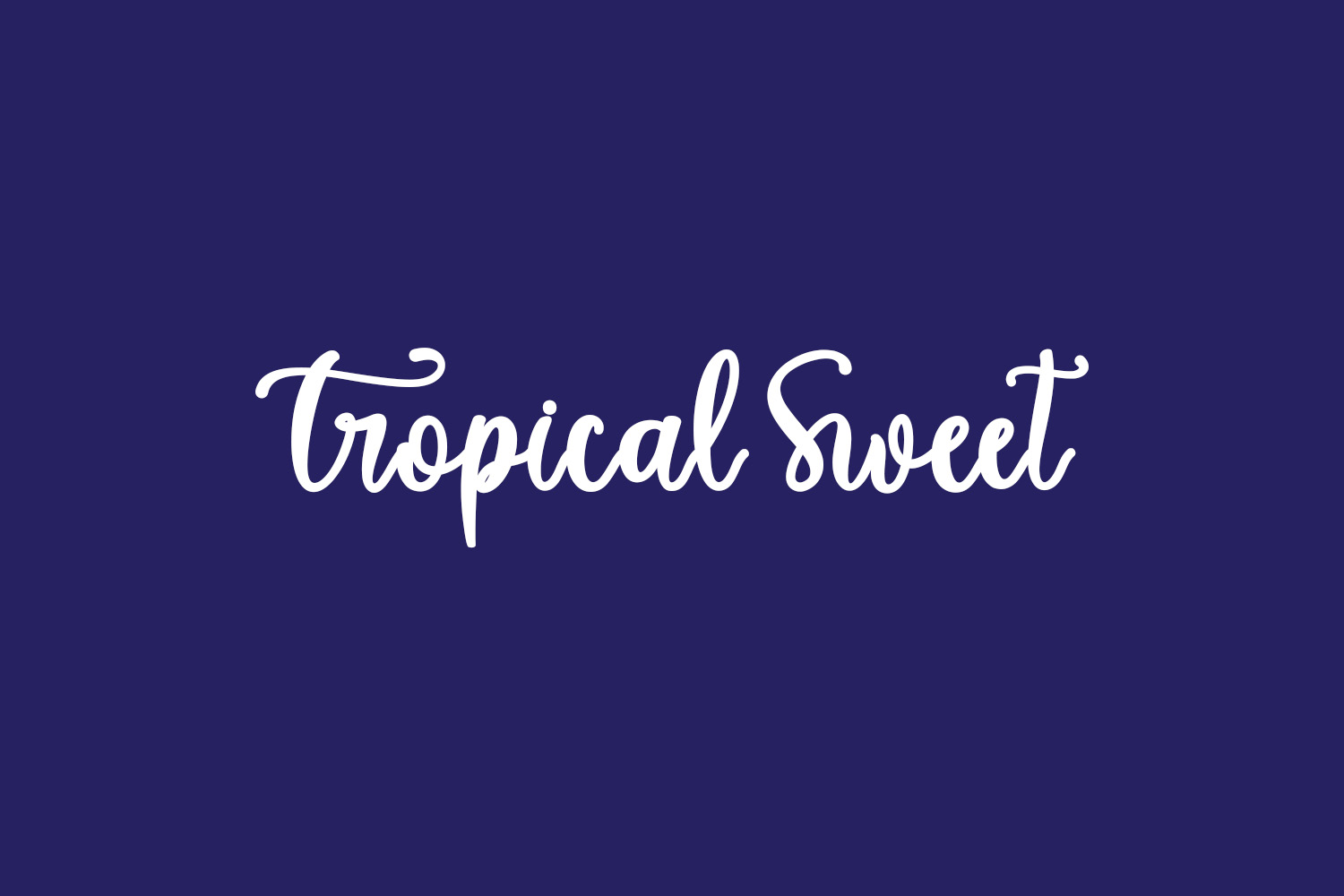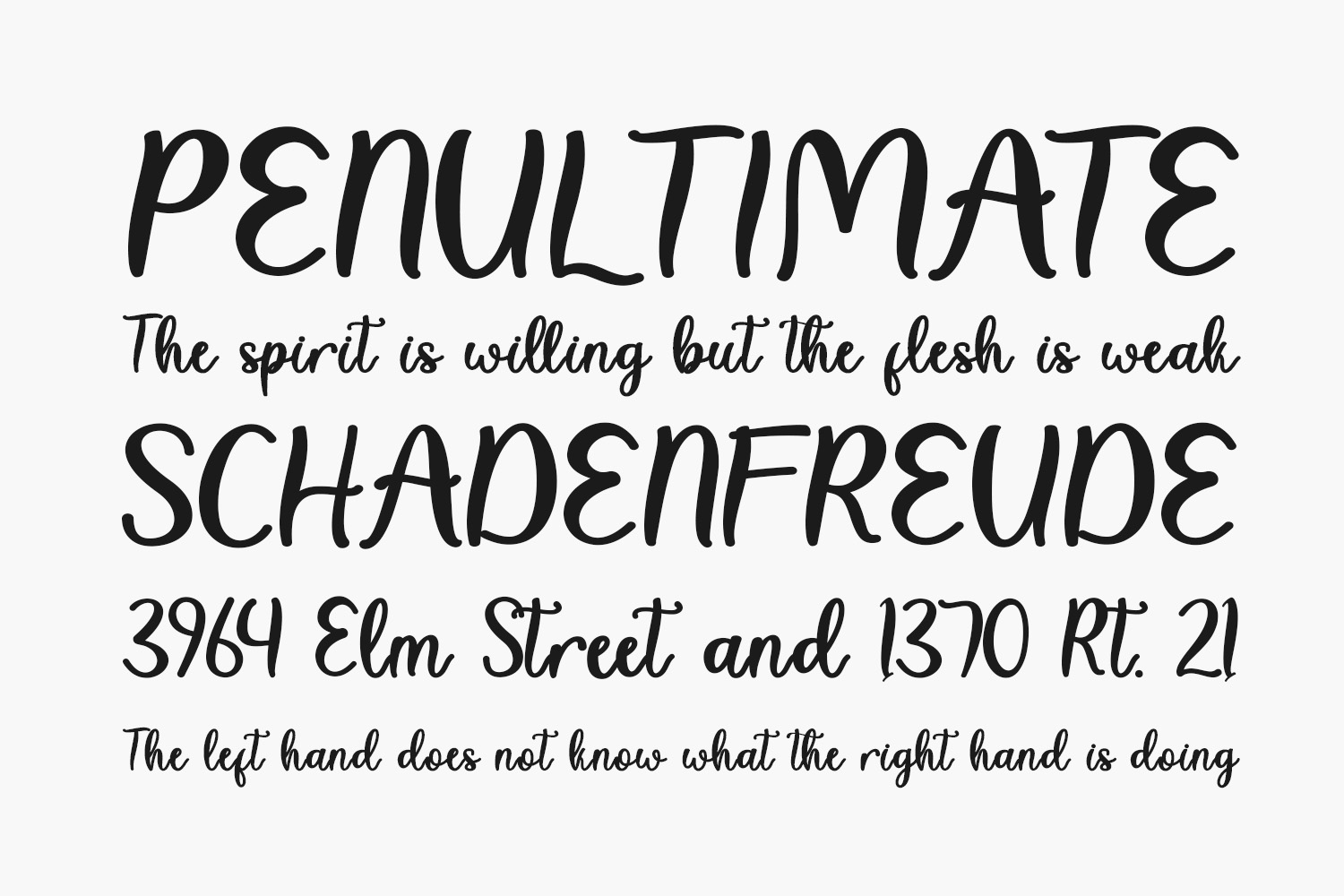
Tropical Sweet Free Font Family is a charming and elegant handwritten font. This font is PUA encoded which means you can access all glyphs and swashes with ease! Fall in love with its incredibly versatile style and use it to create spectacular designs. Tropical Sweet Free Font Family was designed by Yoga Letter and is free for personal use only. Please purchase the full version for commercial use.